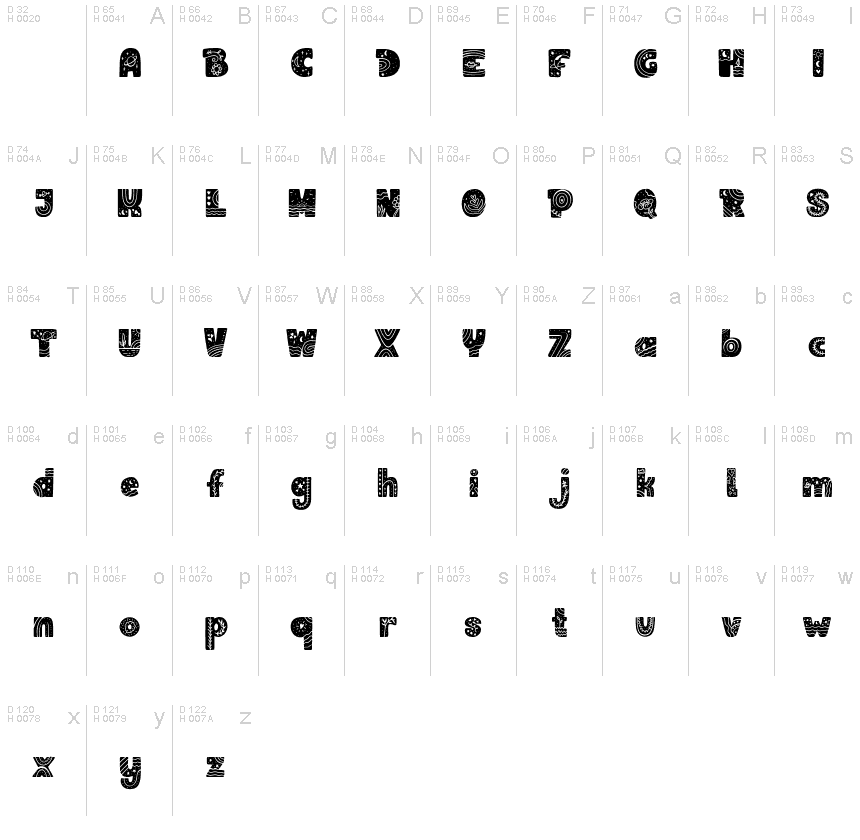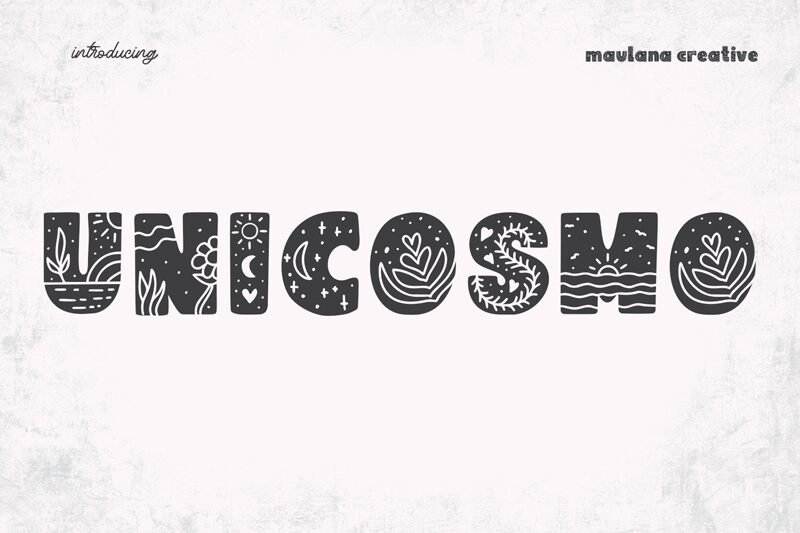
Unicosmo Free Regular
Unicosmo is a stunning extra-bold display font created by the talented Maulana Creative. Its decorative style exudes a unique flair that makes it perfect for various projects, from branding to packaging and editorial design. The boldness of Unicosmo's typeface makes it ideal for headlines, titles, and other eye-catching text elements that need to stand out. Its distinct character and creative design can add an artistic touch to your projects and make them truly remarkable. Give your designs a stylish edge with Unicosmo – the perfect font choice for any project that demands a touch of creativity!